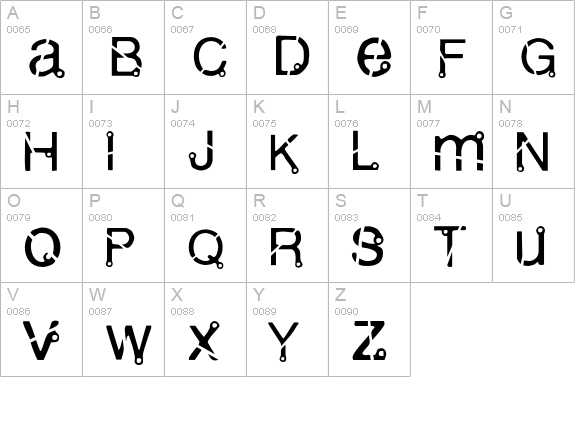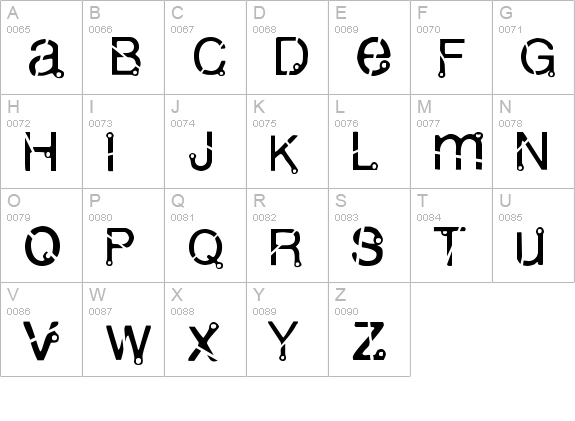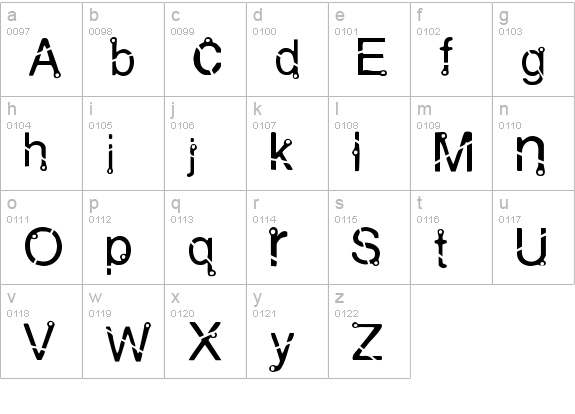
Mutant Font Details
Mutant font is a unique and edgy typeface that brings a touch of futuristic style to your designs. With its bold and sharp letterforms, Mutant exudes a sense of power and modernity. This font is perfect for projects that require a strong, attention-grabbing look. What makes Mutant font even more appealing is that it is available for free download at FontsMarket.com. You can easily access this font and use it in your personal and commercial projects without any cost. Enhance your designs with the striking and dynamic appearance of Mutant font today!